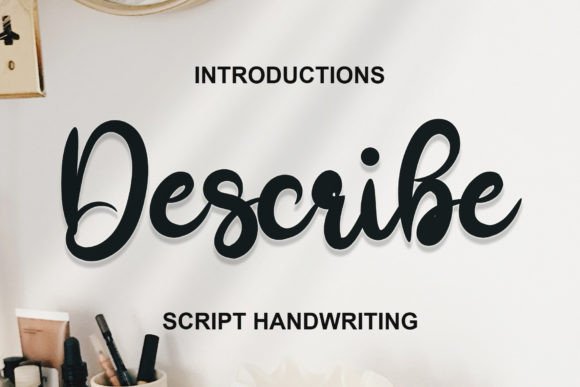
From the creative minds of YanStudio, we introduce Describe, an enchanting script font that will captivate your audience and elevate your designs to new heights. Step into a world of elegance and sophistication as you explore the captivating world of Describe. Lose yourself in the seamless flow of its characters, each one dancing along the baseline in perfect harmony. Experience the sheer joy of unleashing your creativity as you witness Describe transform your projects into masterpieces.
With Describe, you'll discover a font that perfectly captures the essence of modern UI design. Its clean lines and contemporary style make it the ideal choice for adding a touch of sophistication and allure to your digital creations. Whether you're working on a website, app, or social media campaign, Describe will help you create a lasting impression that resonates with your audience.
Unleash the boundless versatility of Describe and watch it seamlessly adapt to a wide range of design projects. Let its graceful curves and playful personality bring life to your logos, posters, invitations, and more. As a handwritten font, Describe possesses an innate charm that instantly adds warmth and approachability to your designs. It's the perfect choice for conveying heartfelt messages, personal branding, and creating a lasting connection with your audience.
Indulge in the beauty of Describe and let your imagination soar. Its captivating style and endless possibilities will transform your designs into works of art that leave a lasting impact. Embrace the power of handwritten elegance and elevate your creations to new heights with Describe, the ultimate script font for modern UI and beyond.